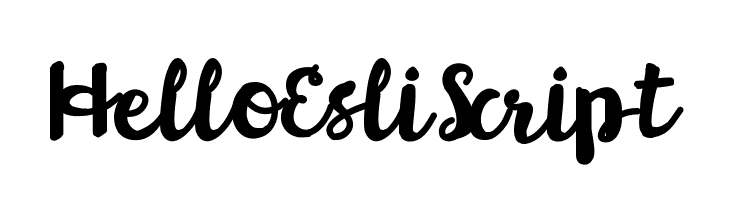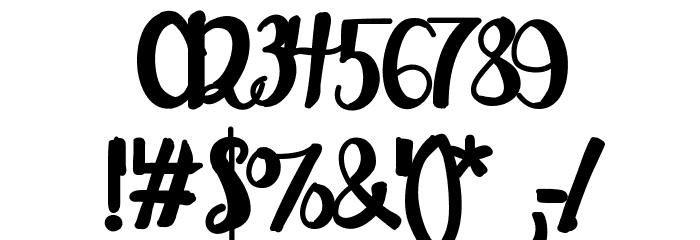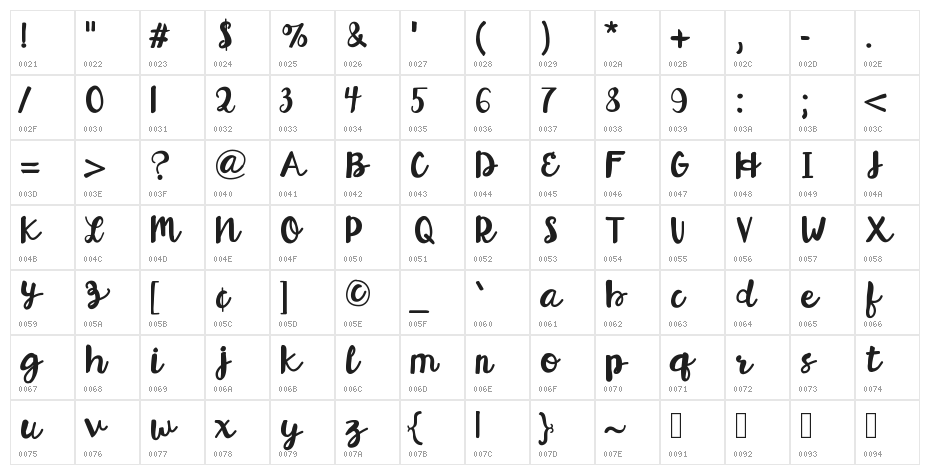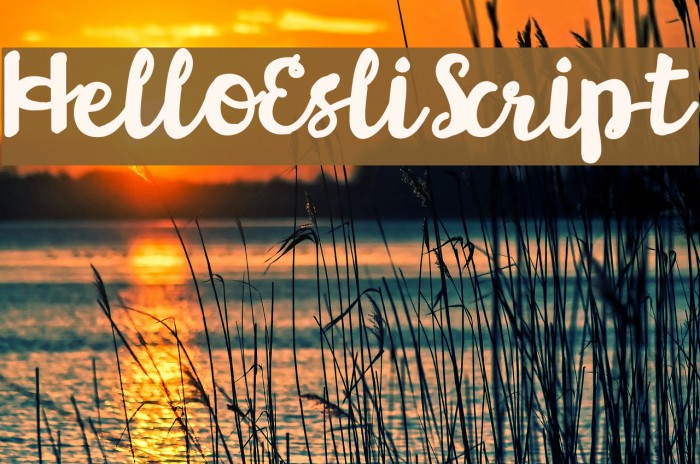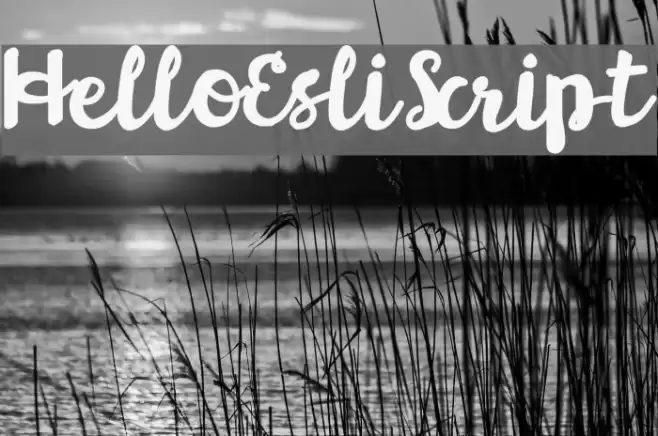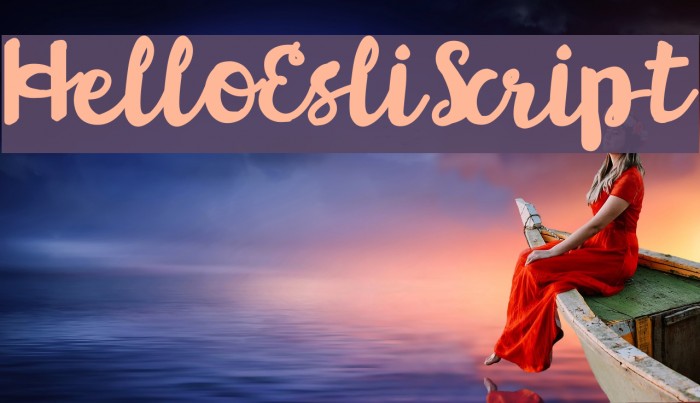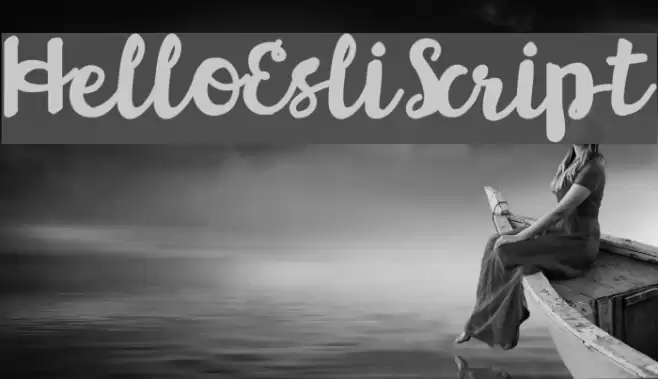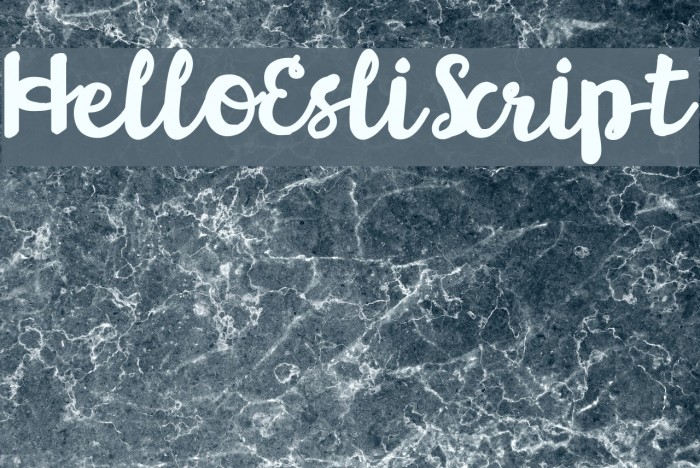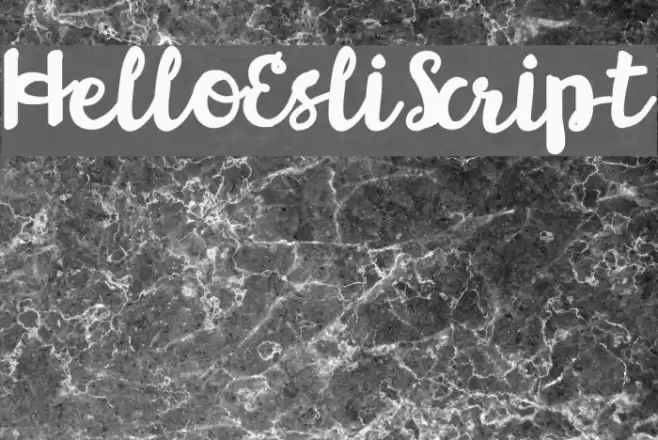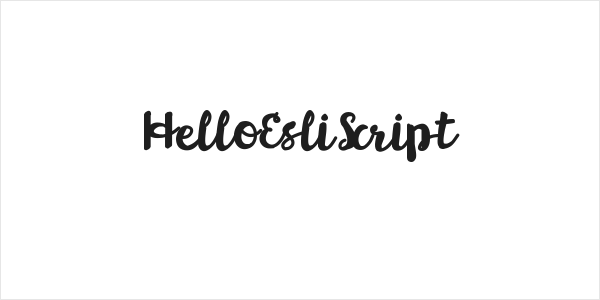
HelloEsliScript Font
HelloEsliScript Description
This font features a bold and playful script style with a handwritten appearance. The letters are connected in a fluid manner, creating a sense of movement and energy. The uppercase letters are slightly larger and more pronounced, while the lowercase letters maintain a consistent flow. The numbers and special characters are designed to match the overall style, with a distinctive flair. The strokes are thick and consistent, providing a strong visual impact. This font is ideal for projects that require a personal touch or a creative, informal vibe.
| Proposed Projects | Ideal for greeting cards, invitations, logos, and branding materials that require a personal and creative touch. |